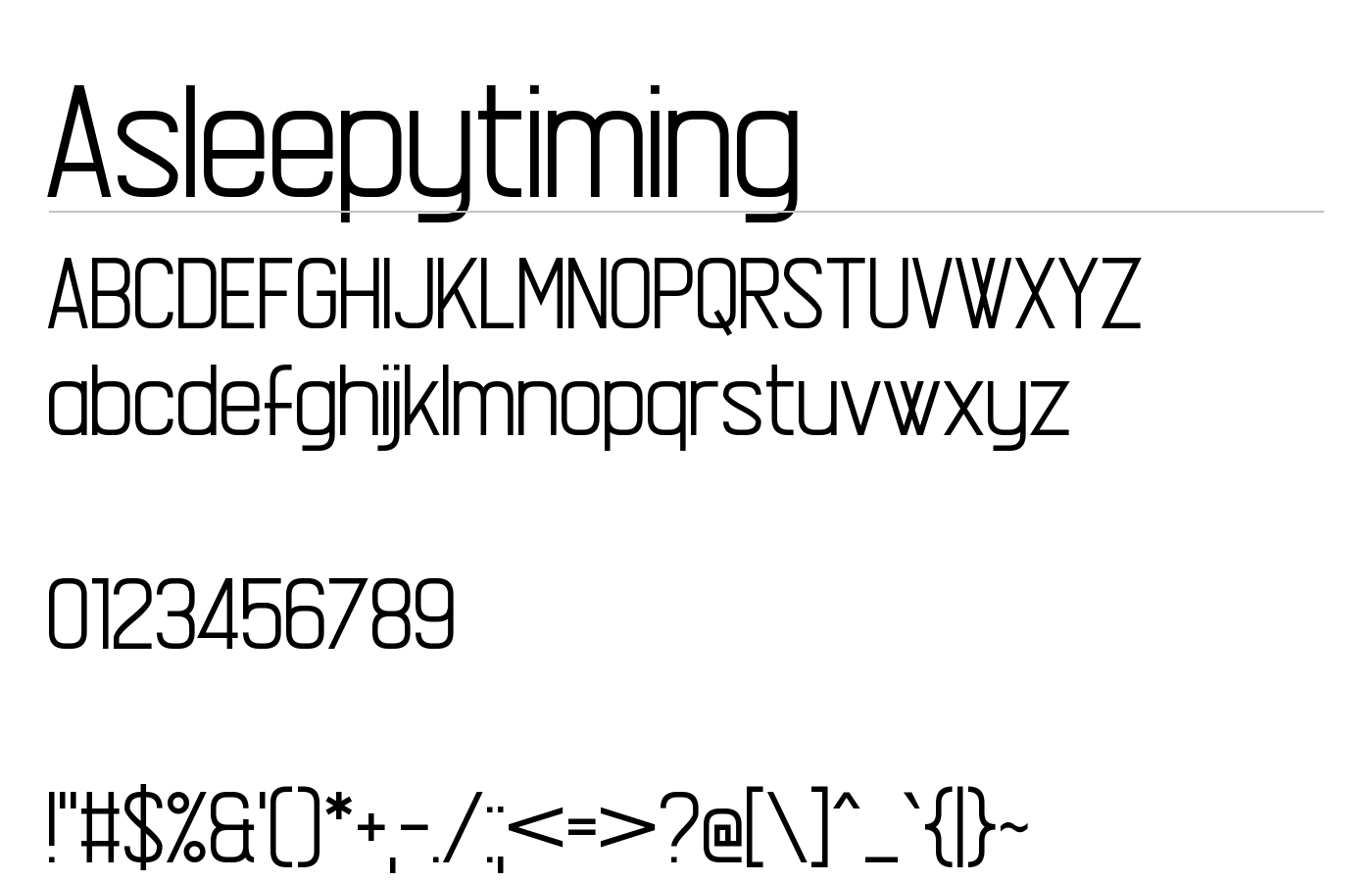
Asleepytiming is a sleek, condensed sans serif font with a modern and minimalist design. Its tall, narrow letterforms with uniform stroke weight and geometric shapes create a clean, futuristic feel that works well for tech branding, headlines, and editorial uses where space efficiency and clarity are key. This font is ideal for projects seeking a contemporary, streamlined aesthetic with a subtle edge of sophistication.
Asleepytiming Font
About Asleepytiming Font